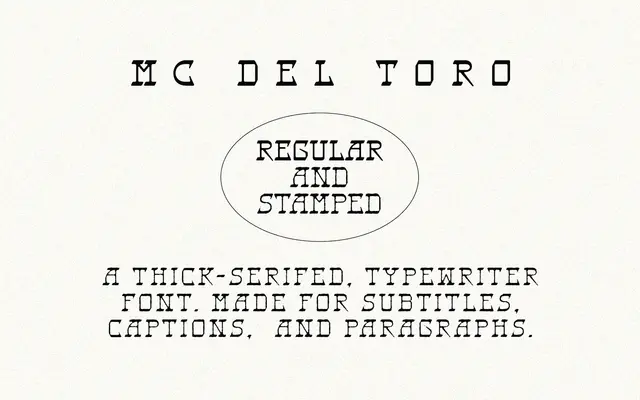
MC Del Toro
MC Del Toro is offered in one weight with no italic or condensed cuts, suggesting a focused decorative application rather than a workhorse text family. Licensing is structured by company size, ranging from individual use to organisations of more than a hundred employees. The page provides little contextual detail about its design influences or intended use cases.
The page provides minimal stylistic detail, but the single-weight offering, pricing structure and 'Type away!' demo suggest a decorative display face rather than a text family.